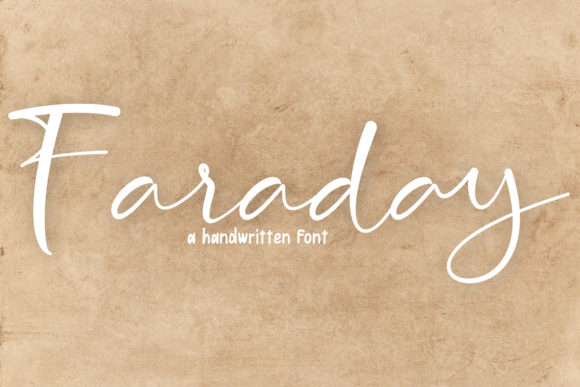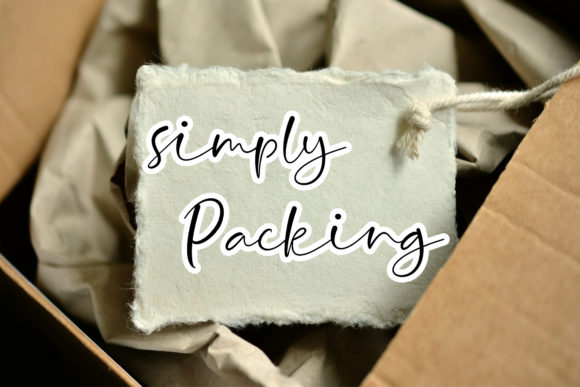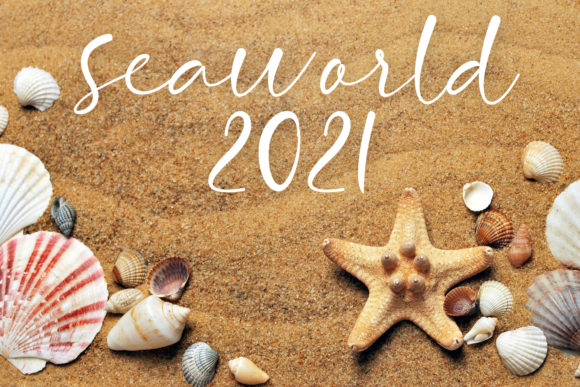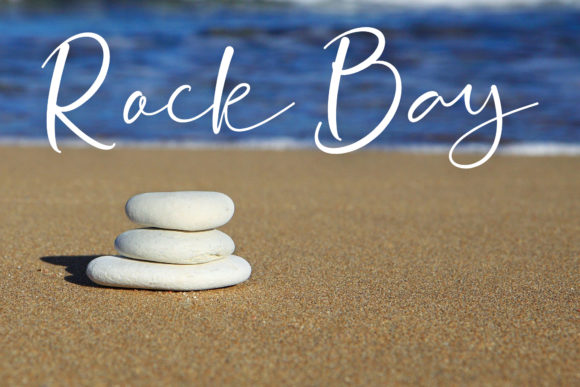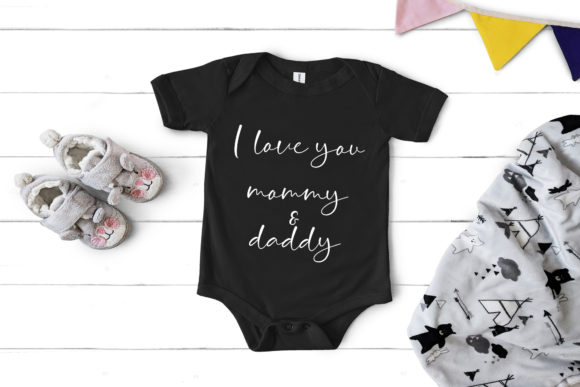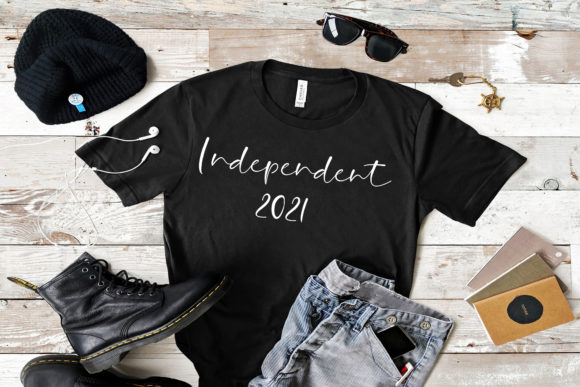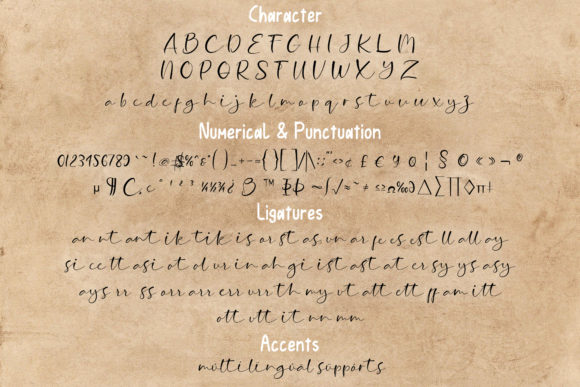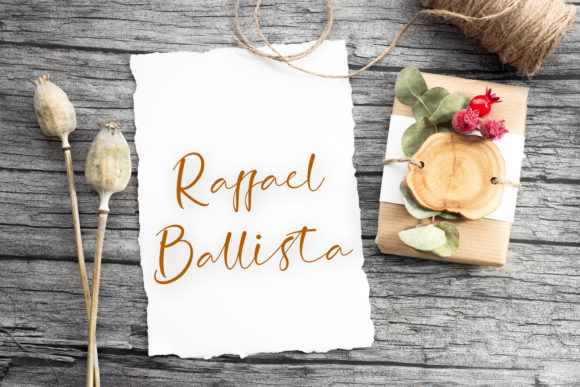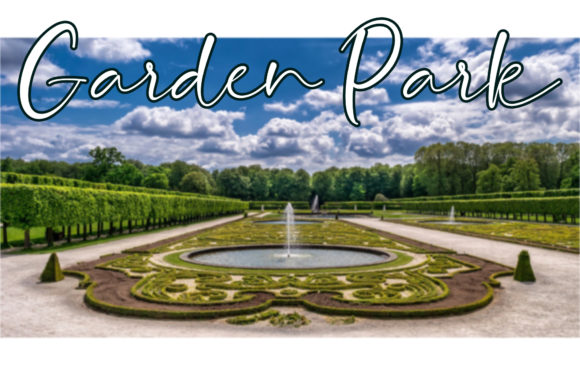
Faraday Font
About Faraday Font
Faraday is a casual and relaxed handwritten font. It has a clean, thin and smooth vibe and it will be a hit for any design that you want to add it to.